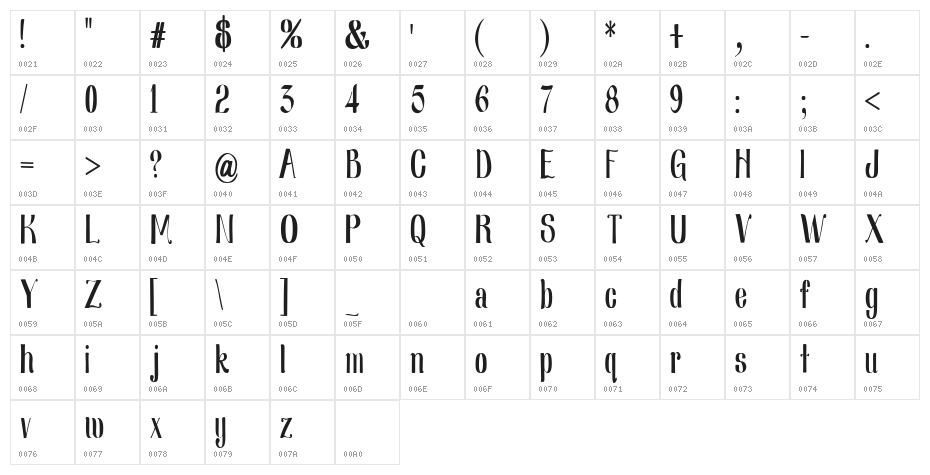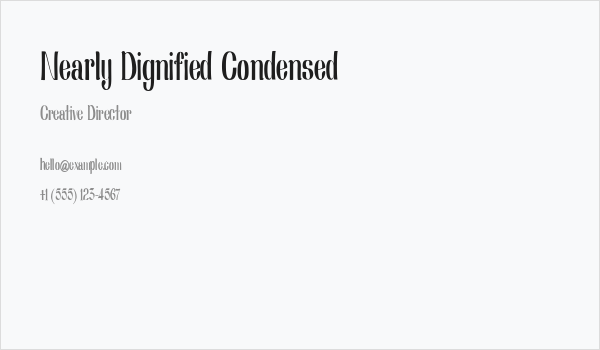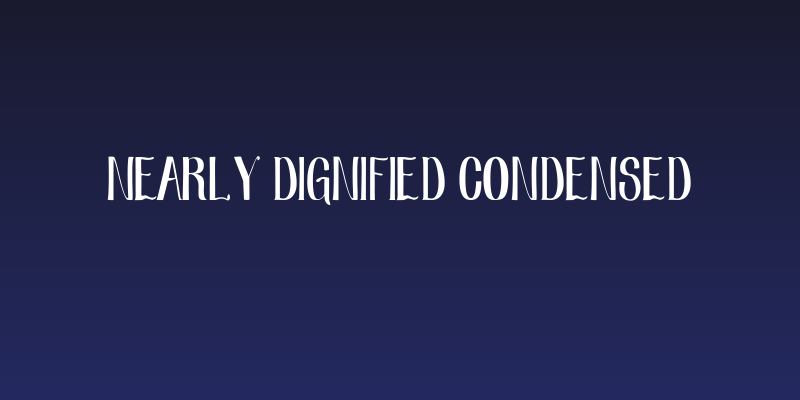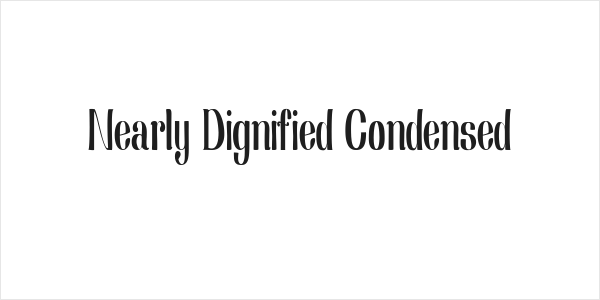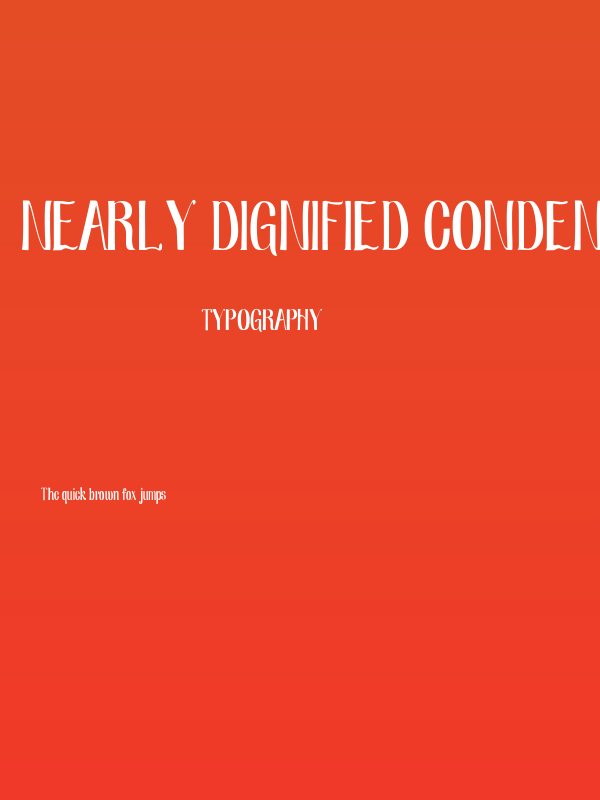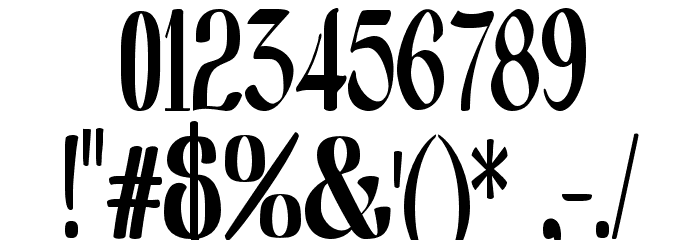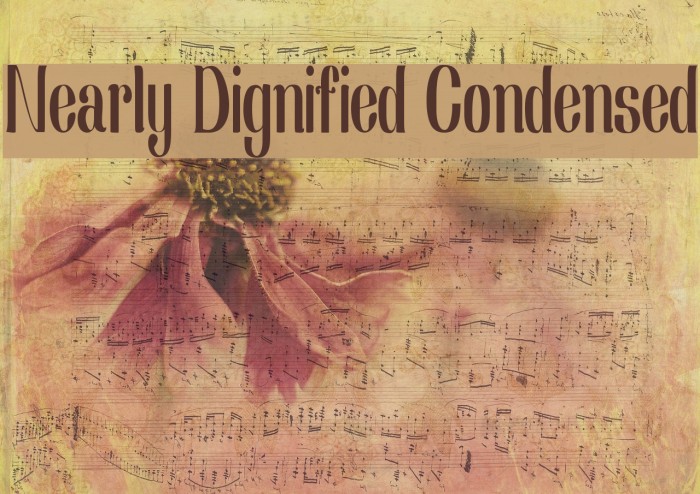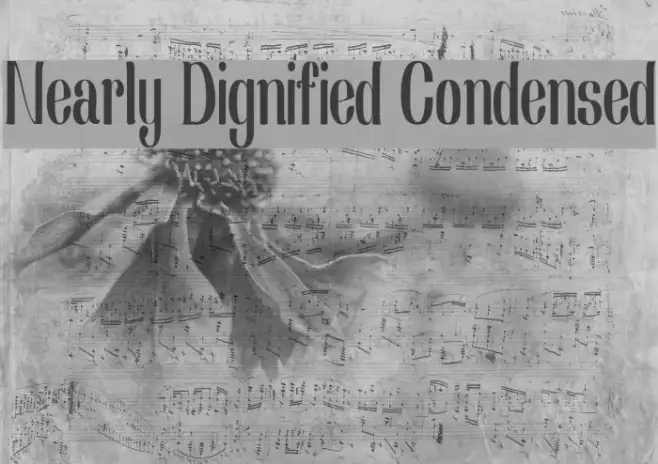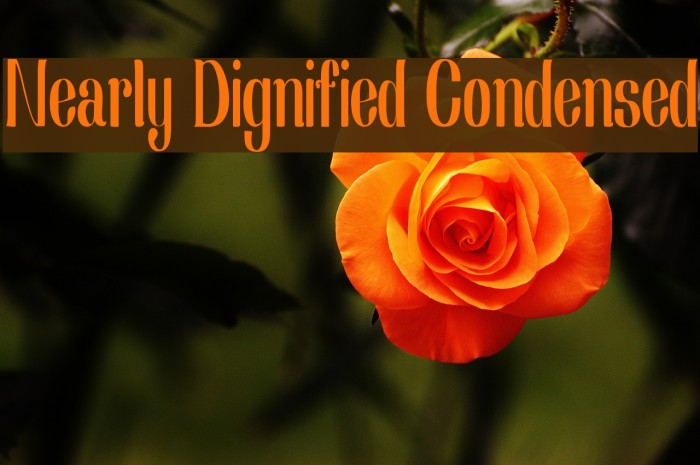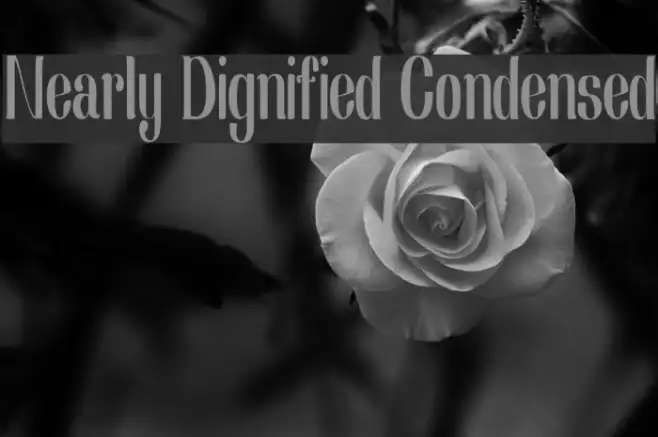
Nearly Dignified Condensed Font
Nearly Dignified Condensed Description
This font features a unique blend of elegance and boldness, characterized by its condensed letterforms and high contrast between thick and thin strokes. The uppercase letters exhibit a playful yet dignified style, with elongated verticals and subtle curves that add a touch of sophistication. The lowercase letters maintain a consistent rhythm, enhancing readability while preserving the decorative flair. Numerals are distinct and easily distinguishable, complementing the overall aesthetic. Special characters are thoughtfully designed, ensuring versatility across various applications.
| Proposed Projects | Ideal for branding, packaging design, editorial headlines, and invitations where a touch of elegance is desired. |